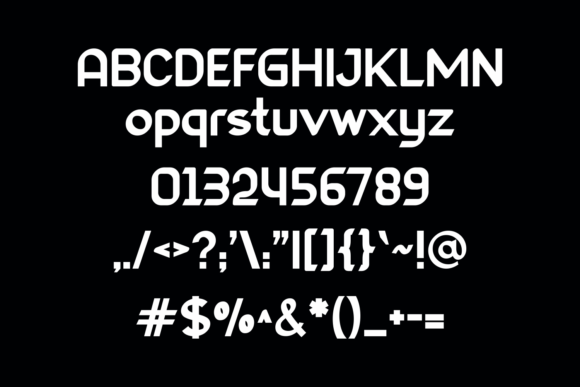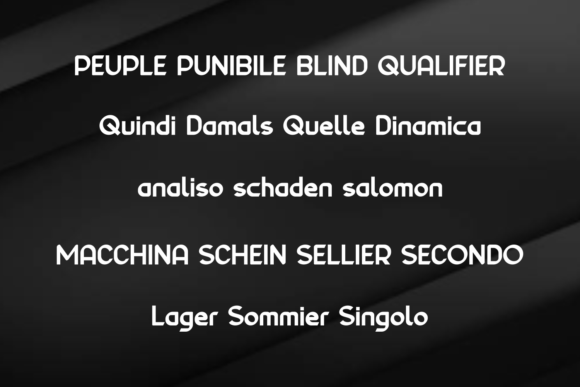
Discover the Cool and Unique Garner Font: Elevate Your Designs with its Modern Sans-Serif Style
In the world of typography, fonts play a crucial role in conveying the tone and personality of a design. For designers and crafters looking to add a touch of modernity and uniqueness to their creations, the Garner Font is an excellent choice. This cool and unique sans-serif font is neatly crafted and highly detailed, making it a wonderful asset to any font library.
What Makes Garner Font Stand Out?
Garner Font boasts a clean and minimalist design that exudes a sense of sophistication and elegance. Its sans-serif style gives it a modern and edgy feel, perfect for designs that require a fresh and contemporary look. The font’s neat and detailed craftsmanship ensures that it remains legible and readable, even at smaller sizes.
One of the key features that sets Garner Font apart is its versatility. Whether you’re working on a branding project, a website design, or a craft project, this font can adapt to any topic or theme. Its neutral tone and classic design make it an excellent choice for a wide range of applications, from corporate and business to creative and artistic.
Enhance Your Creations with Garner Font
With Garner Font, you can elevate your designs and add a professional touch to your creations. The font’s modern sans-serif style makes it perfect for:
• Branding and logos: Create a lasting impression with a unique and memorable logo that showcases your brand’s personality.
• Website design: Enhance the user experience with a clean and readable font that adapts to various screen sizes and devices.
• Social media graphics: Stand out on social media with eye-catching graphics and typography that reflect your brand’s style.
• Crafting and DIY projects: Add a personal touch to your craft projects, such as handmade cards, invitations, and labels.
Why Choose Garner Font?
There are several reasons why Garner Font should be your go-to choice for your design projects:
• Unique and cool design: Garner Font’s modern sans-serif style sets it apart from other fonts, making it perfect for designers looking for something fresh and unique.
• Highly legible: The font’s clean design and detailed craftsmanship ensure that it remains readable, even at smaller sizes.
• Versatile: Garner Font can be used for a wide range of applications, from corporate and business to creative and artistic.
• Easily adaptable: The font can be used in various contexts, from digital designs to print materials.
In conclusion, Garner Font is an excellent addition to any designer’s or crafter’s font library. Its modern sans-serif style, clean design, and versatility make it perfect for a wide range of applications. Whether you’re looking to create a professional brand image or add a personal touch to your craft projects, Garner Font is sure to elevate your designs and enhance your creations.